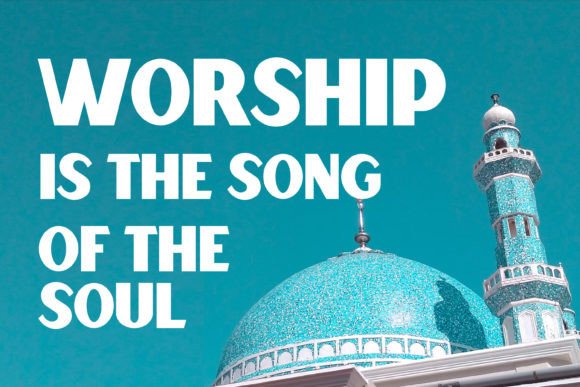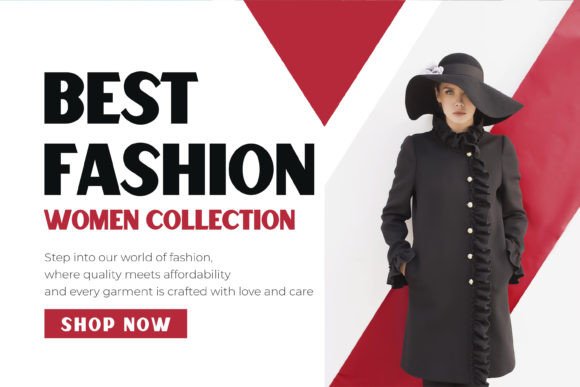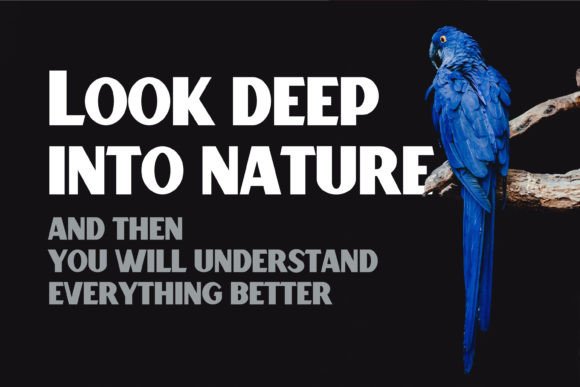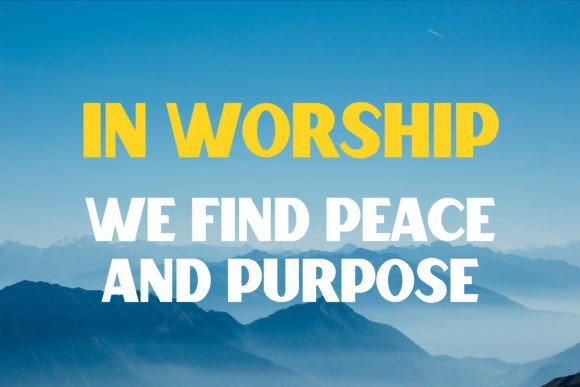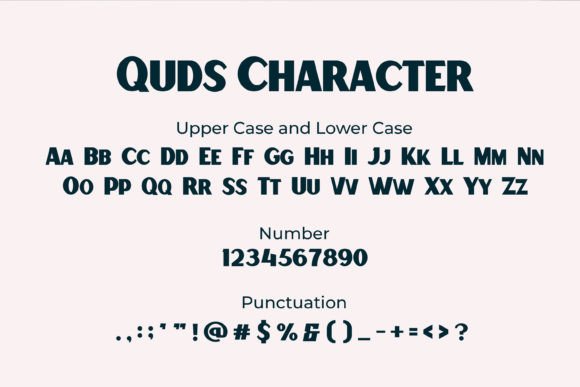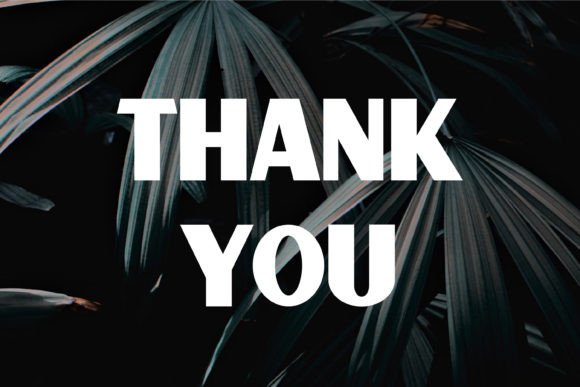
Introduction to Quds Font
Introducing Quds, a striking and versatile sans serif display font designed to captivate and inspire.
With its clean lines, modern aesthetic, and impeccable craftsmanship, Quds offers a fresh take on contemporary typography, perfect for designers seeking to make a bold statement .
Key Features of Quds Font
Why Choose Quds Font?
Quds Font offers exceptional quality and versatility, making it a valuable addition to your design toolkit. Whether you’re creating for personal projects or commercial use, Quds Font delivers professional results.